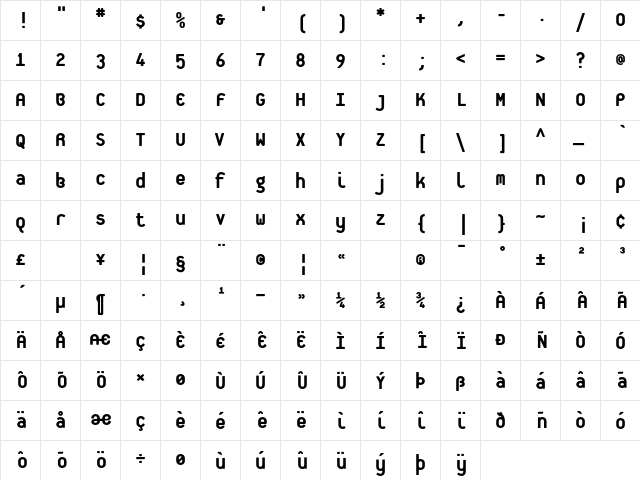
Boks-Heavy Heavy
Design Context for Boks-Heavy Typeface
Boks-Heavy offers clean, dependable letterforms without strong stylistic allegiance, making it a practical choice for designers who need flexibility.